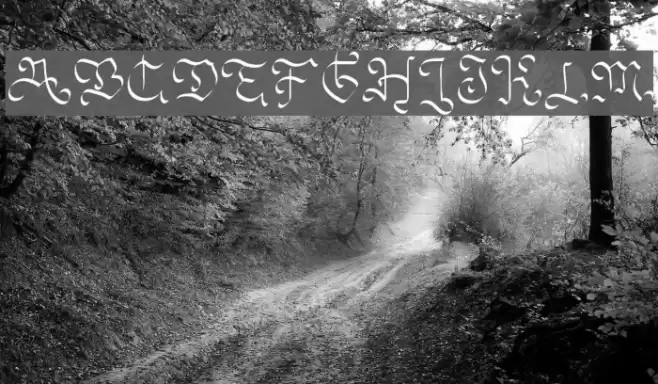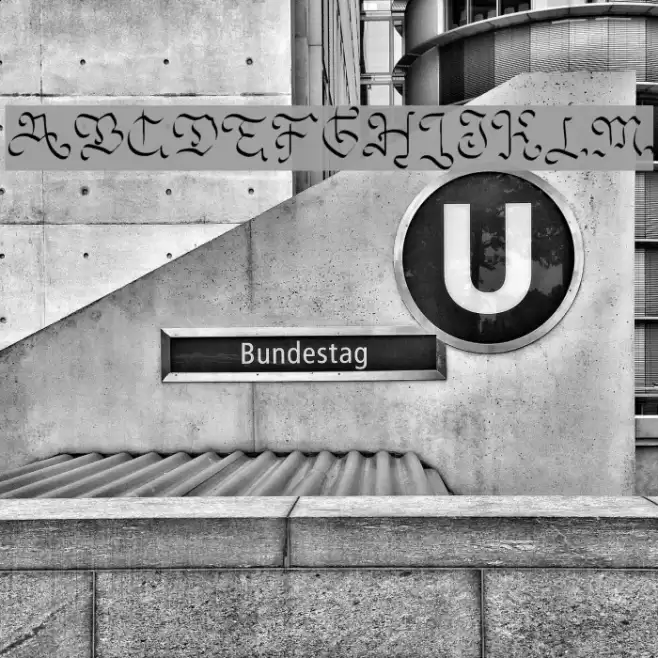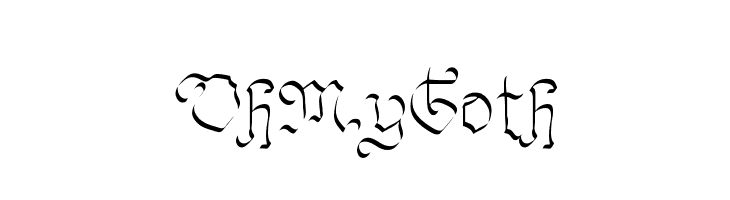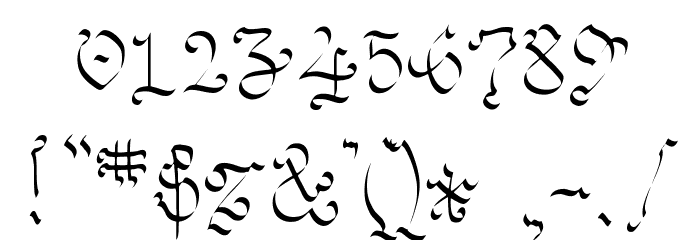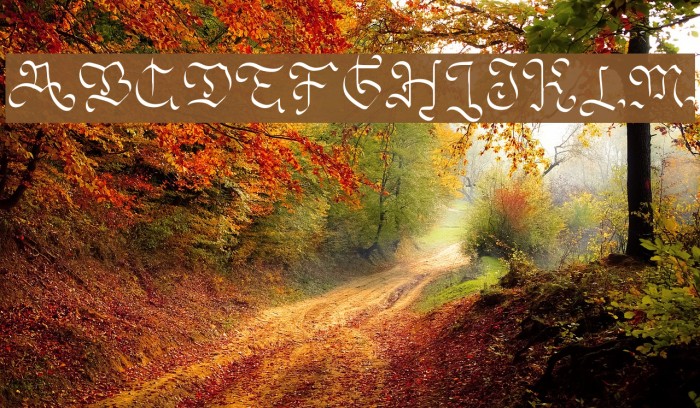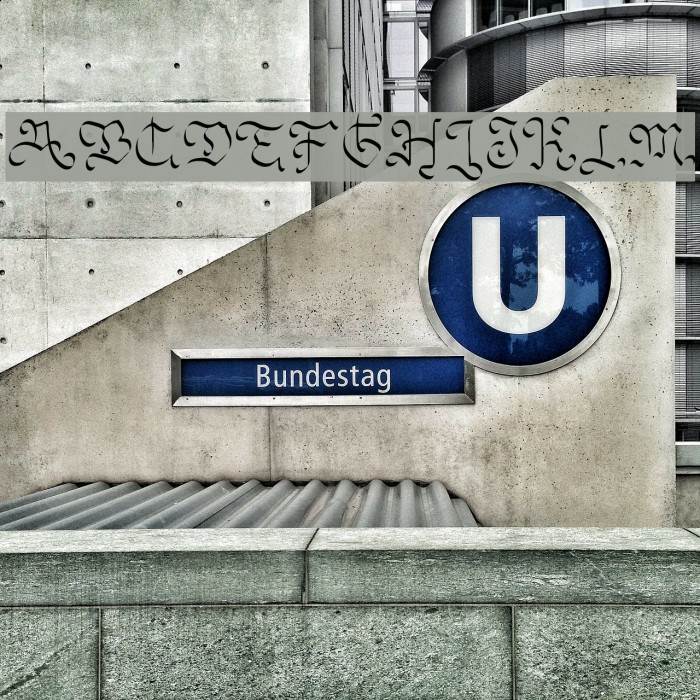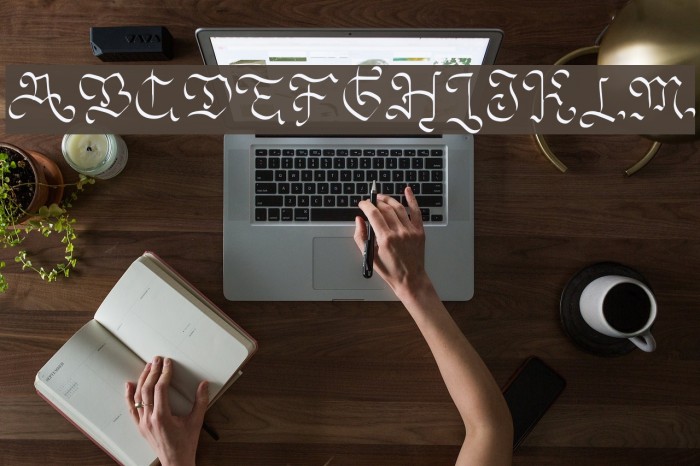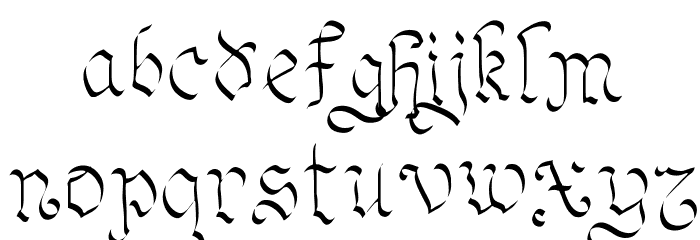
OhMyGoth Font
OhMyGoth Description
This font exhibits a classic blackletter style, characterized by its intricate and ornate letterforms. The uppercase letters are bold and dramatic, with sharp angles and elaborate flourishes that give a sense of historical elegance. The lowercase letters maintain the same decorative quality, with unique curves and strokes that add to the overall gothic aesthetic. The numerals are consistent with the style, featuring similar embellishments and a bold presence. Special characters are equally ornate, fitting seamlessly with the rest of the typeface. The font's design is reminiscent of medieval manuscripts, offering a sense of tradition and sophistication.
An ornate blackletter font with intricate, gothic-inspired letterforms from Gothic fonts.
- Proposed Projects: Ideal for projects requiring a historical or gothic theme, such as book covers, posters, or branding for vintage or luxury products.
- Overall Style: Vintage
- Use Case: Logos, Headlines, Decorative text